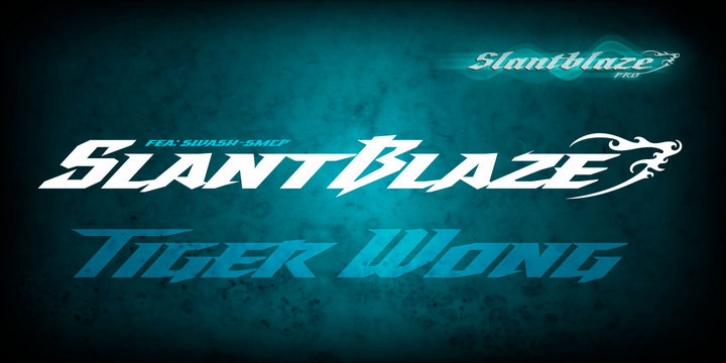
Slantblaze Pro was designed by Andi Masry and published by Campotype. Slantblaze Pro contains 1 style.
Slantblaze Pro is an alternative font display with these characteristics: Simple, Thick, Contrast, and Communicative. As italics, Slantblaze Pro has aloof challenge as a display font. Slantblaze Pro also represents dynamic activities in every appearance.
Slantblaze Pro is a display font with simple otf feature. It was designed as an alternative for headline, title in any purpose such as header, brands, packaging, identity, etc.